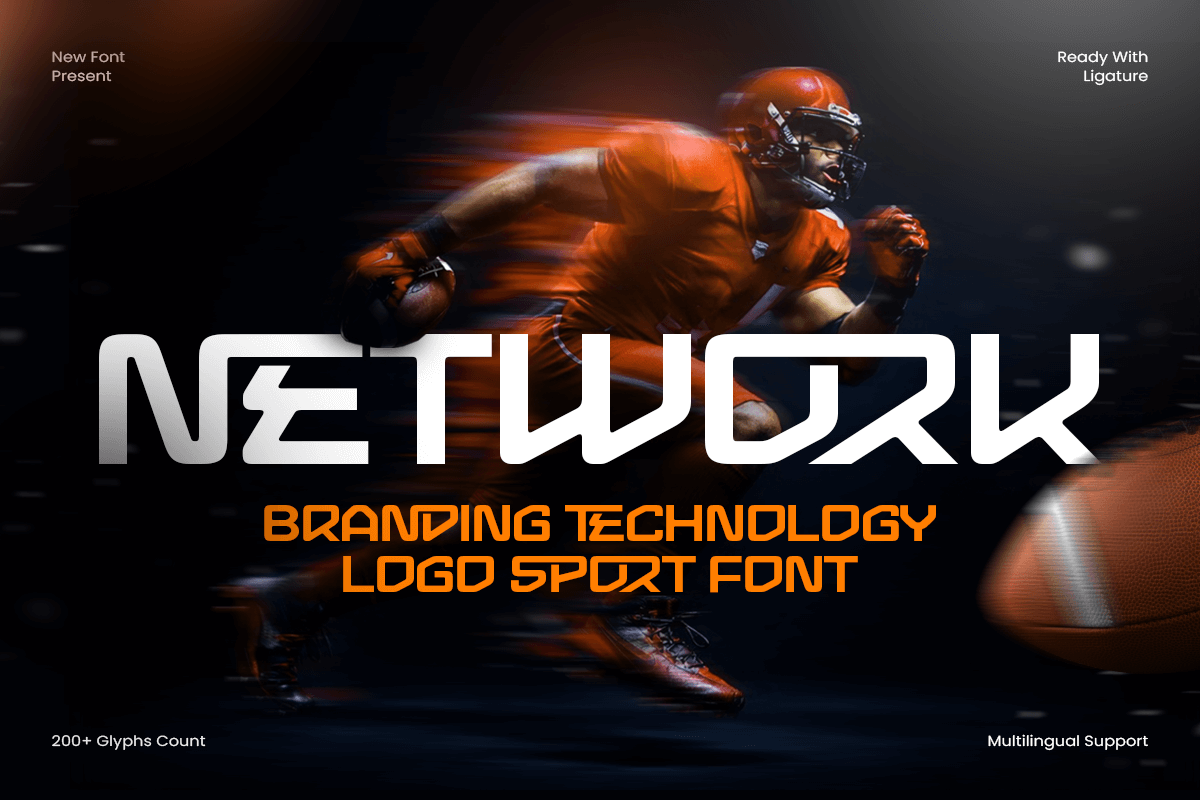
Network
-Branding Technology Logo Sport FontNetwork - Branding Technology Logo Sport Font
NETWORK is a branding technology logo sport font designed to deliver speed, precision, and modern power in every letter. With a clean tech structure and sporty energy, this typeface creates a confident visual tone that feels futuristic, dynamic, and instantly brand-ready.
Built for high-impact identity work, NETWORK performs seamlessly across logos, wordmarks, team branding, esports identities, fitness campaigns, product launches, posters, website headers, UI graphics, and social media promos. Its sharp rhythm and bold presence keep typography strong and readable, making it ideal for headline-driven layouts and competitive branding.
Whether you’re creating a tech startup identity with athletic edge, developing an esports logo system, or designing modern sports marketing visuals, NETWORK provides a fast, modern foundation that makes your typography feel powerful, energetic, and unforgettable.
Inspiration Behind NETWORK
NETWORK is inspired by futuristic interface design and modern sports branding—where speed lines, precision geometry, and digital energy define the visual language. The design focuses on clean momentum and tech-forward structure to support competitive identities and high-performance branding with a sleek, modern feel.
NETWORK Font Features:
Tech-sport letterforms optimized for logos and brand identity
Modern structure with dynamic, high-energy character
Strong readability for headlines, posters, and digital promos
Ideal for esports, sports events, and technology branding
Sports logos, team identity, and esports branding systems
Technology branding, startup wordmarks, and product launches
Fitness campaigns, event posters, and competitive headlines
UI/UX graphics, streaming overlays, and digital banners
Social media promos, ads, and high-energy marketing layouts